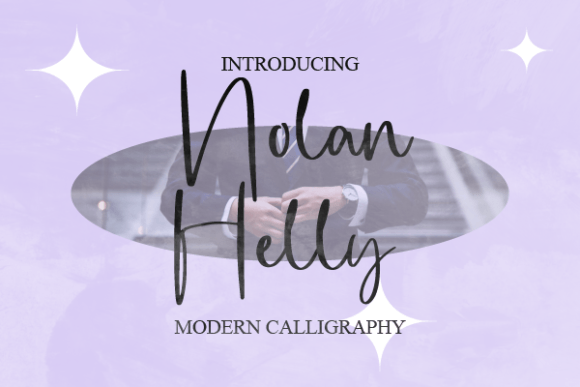
About Nolan Helly
Nolan Helly is a dazzling script font. This font is neatly crafted and highly detailed. Whatever the topic, this font will be a wonderful asset to your font library, as it has the potential to enhance any creation.